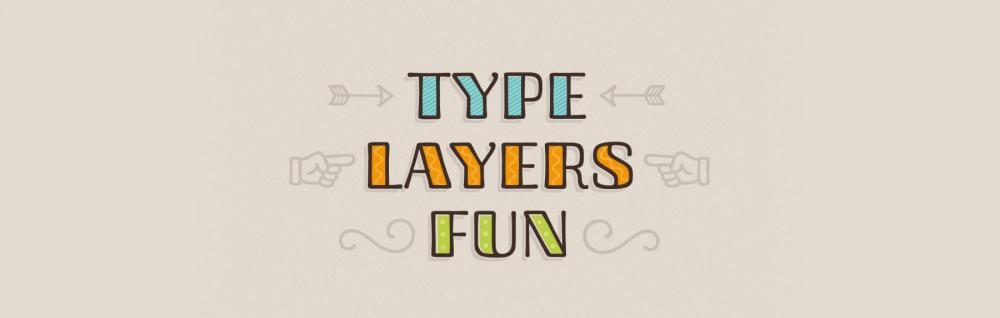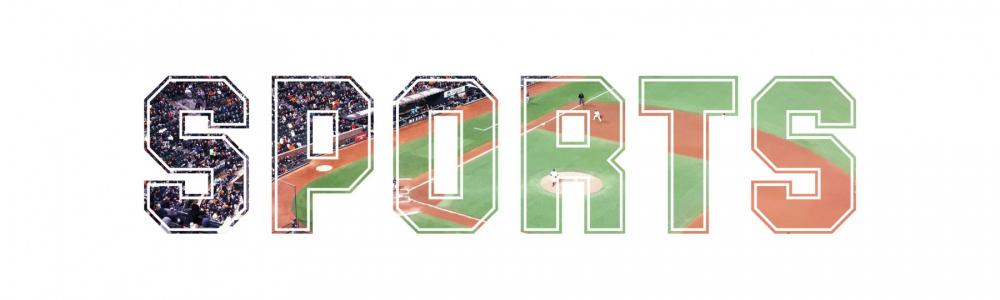
Display fonts are all fonts intended for (relatively speaking) larger type sizes and usually shorter pieces of information. Display fonts are often supposed to be eye-catching—but not necessarily.
A custom display font from Letters from Sweden gives a magazine a unique look
In contrast to the subtle differences of text fonts, the potentially expressive character of display fonts can strongly influence the tonality of your designs and invoke specific associations. The bigger the relative text size and the shorter the text, the more freedom we gain in choosing a font. Because of the size and the shortness of the text, the readers have enough time and enough details to decipher almost any text. As a result, it’s almost impossible to classify display fonts, since so many different styles can and do exist.
In the category of Latin display fonts we don’t have to be as conservative as with text fonts. There are endless possibilities and we can go to all the extremes. Here are a few typical examples:
- from extra thin to extra bold
- narrow, extra wide, and monospaced
- missing or highly exaggerated elements or constrasts
- constructed or distressed letterforms
- 3D letterforms
- multiple colors
- inline fonts and other decorations within the letterform
- a mix of uppercase and lowercase letterforms
- invoking a different script with letters still being legible as Latin
- simulating a certain display, e.g. an old dot matrix printer or a bitmap font
In addition, we can easily invoke historical associations. We can go well into the past with Roman square capitals, uncial or blackletter fonts. Or we can invoke the Wild West or art styles like Art Nouveau, Art Deco or Bauhaus.
You are also barely limited in your layout choices. You can vary sizes, rotate the text and so on. But as a general rule: the more difficult it gets to read the text, the shorter the text should be. Trying to decipher a text on a poster or postcard might be fun, but having to do it for every headline in a book or magazine it might be rather frustrating.
Display type in magazines—anything goes
Mind the clichés
As easy as it is to invoke specific associations with display fonts, as easy it is to overdo it. The tea packaging in Papyrus, the movie poster in Trajan Pro, the product for kids in Comic Sans. Whenever you can, try to find more interesting alternatives to commonly used display fonts. Luckily, there are many choices. And since display fonts are usually just used for headlines, bullet points or other short pieces information, there is rarely a need for bigger families. A display font in a single style is often enough, especially when mixed with a text font family. More about mixing fonts in our final lesson How to mix fonts.
Countless movies use Adobe Trajan for the movie title
Special category: script fonts
Script fonts are usually treated as a category of its own, but despite their historic connection to everyday handwriting, today’s digital script fonts are mostly used for display use. The options are again endless, since they can be based on all the writing styles in use over the last several millennia as well as all the possible writing tools (e.g. pens, brushes, markers).
- Formal scripts are often used for invitations, certificates and so on
- Informal scripts are used for lists, e.g. for a to-do list app or the ingredients in a cook book
- Handwriting fonts might be used to simulate letters, quotes and other personal texts
- Brush fonts might be used to give products are more hand-made appearance
Professional script fonts often come with lots of alternative characters and ligatures, which can even be applied automatically through OpenType features. This gives the text the appearance of actual handwriting or lettering, since the letters can always connect organically and the same letter might look slightly different when repeated, as it would in handwriting. It is usually recommended to prefer such script fonts over the ones which just have a basic character set.
What not to do:
-
Connected script fonts should always use the default tracking of “zero”.
Otherwise the letters don’t connect properly anymore. - Swash capitals are usually only meant for the beginning of words and should not be applied to all-caps typesetting.
- Flourishes should be applied selectively and where appropriate.
Special category: signage fonts
Signage fonts basically follow the same principles we discussed so far for display fonts. But there usually is a stronger focus on legibility. If we talk about uses such as road signage, legibility often even becomes the only concern. In this case, the design of the characters should work similar to text fonts read in very small sizes. The fonts need to have conservative, robust and low-contrast letterforms so they can be read from as far away as possible.
Example of a typeface optimized for signage use (Wayfinding Sans Pro)
But the signage for a hotel, office building or library might offer more stylistic choices and a unique look with branding qualities might be a goal as well. It’s the designer’s job to weigh the options. And keep in mind that there might be legal requirements or at least recommendations in regards to the legibility and accessibility of the signs you create.